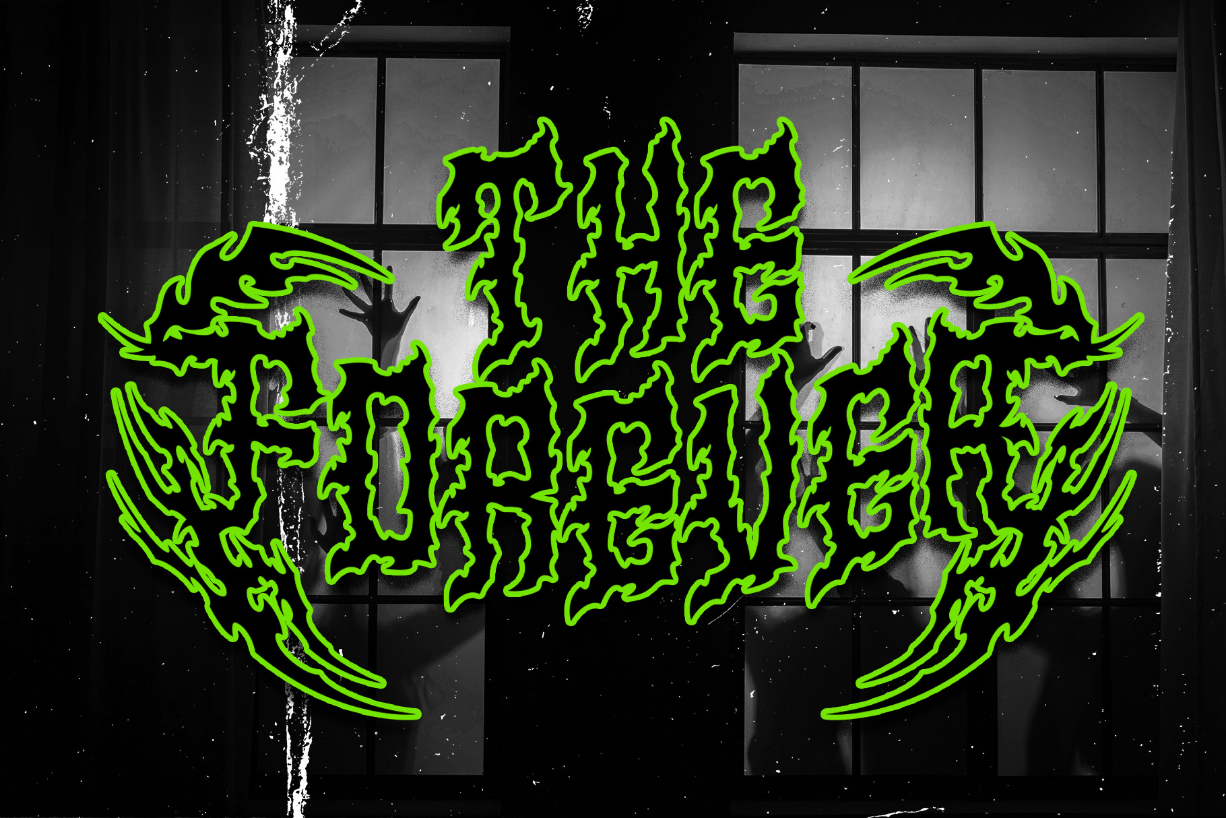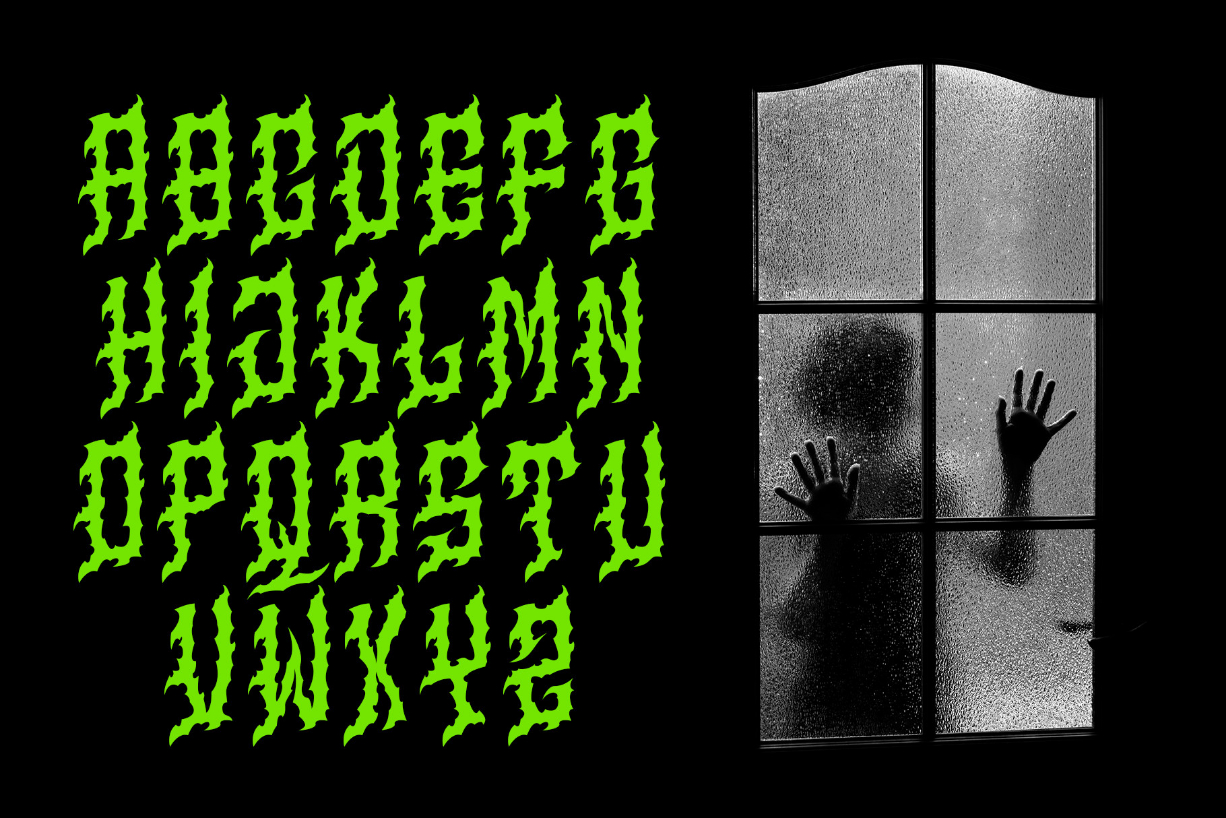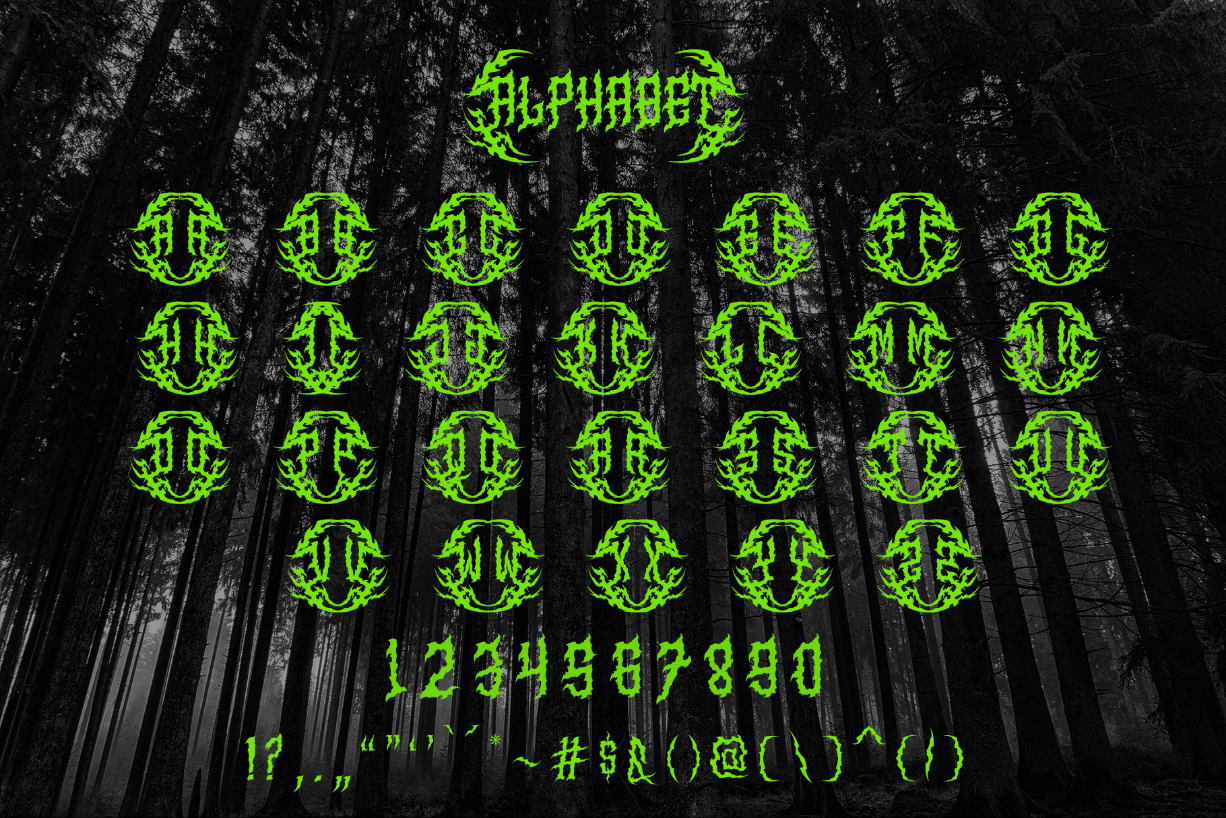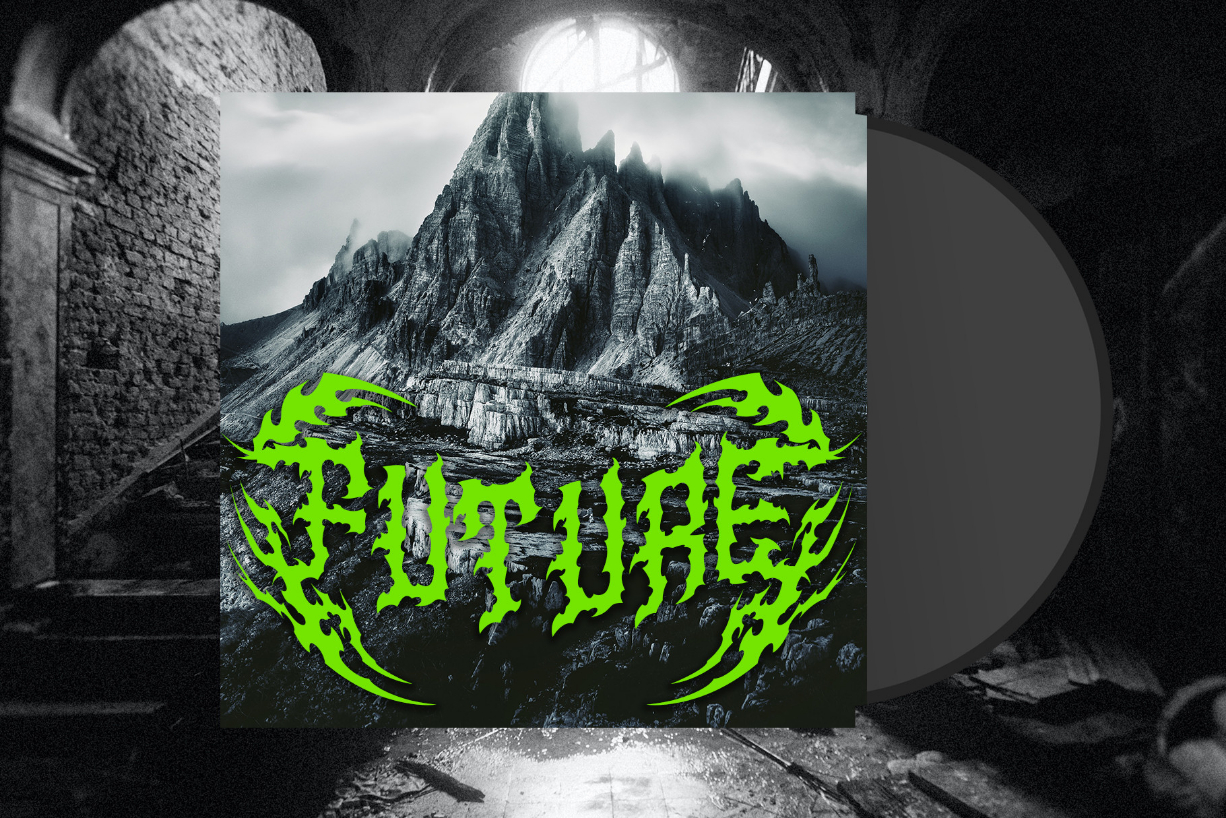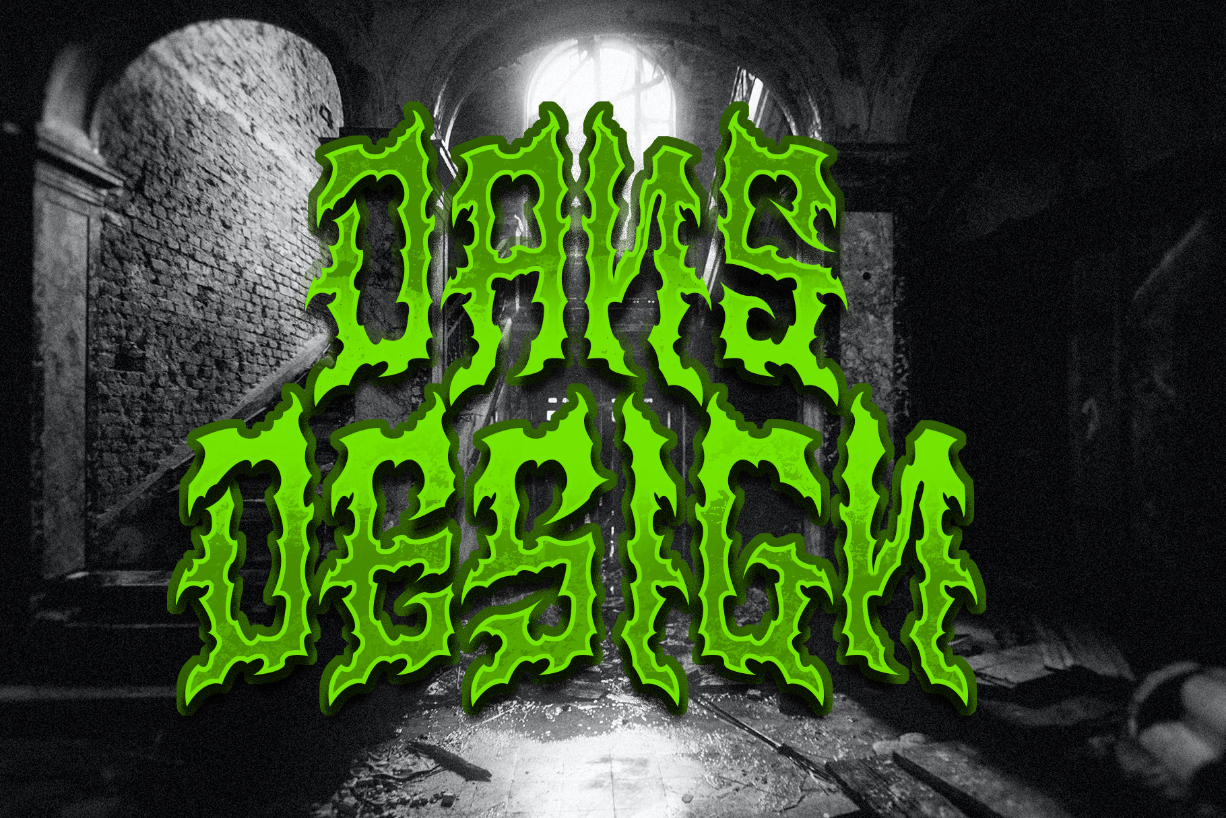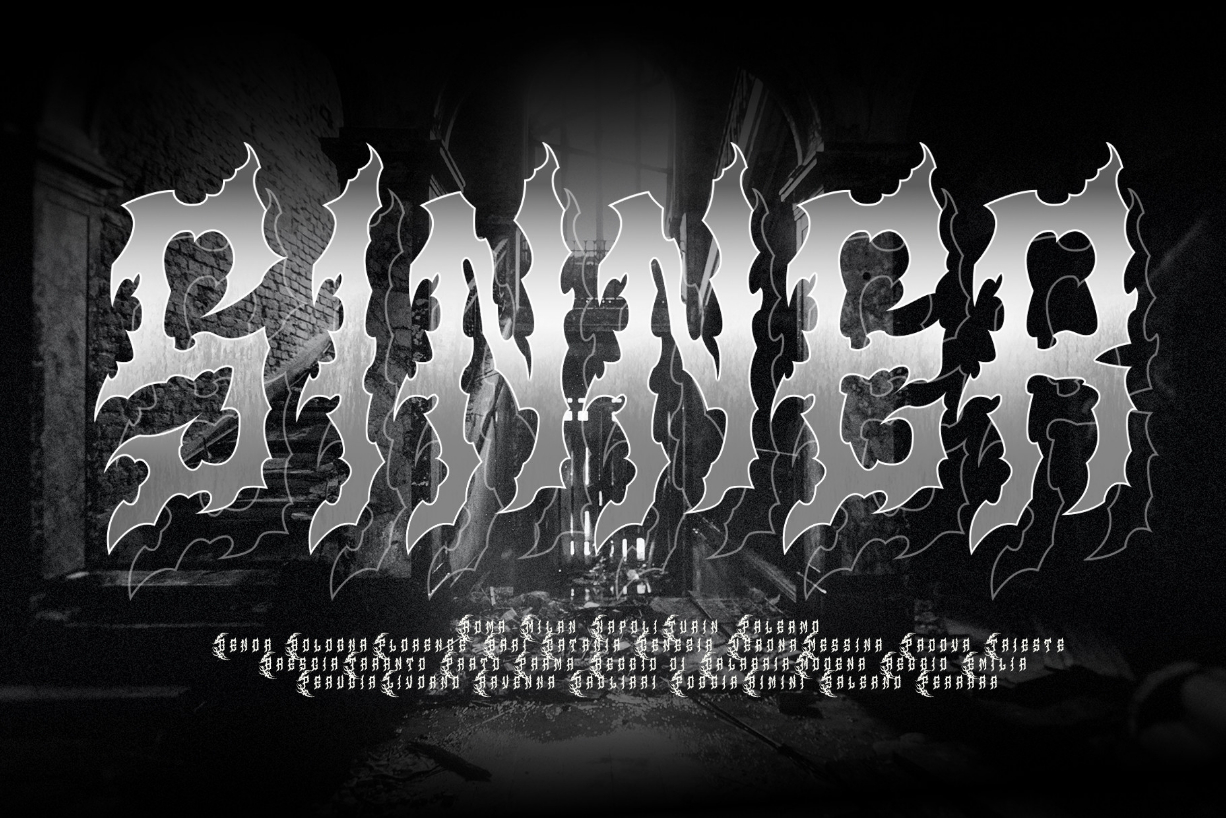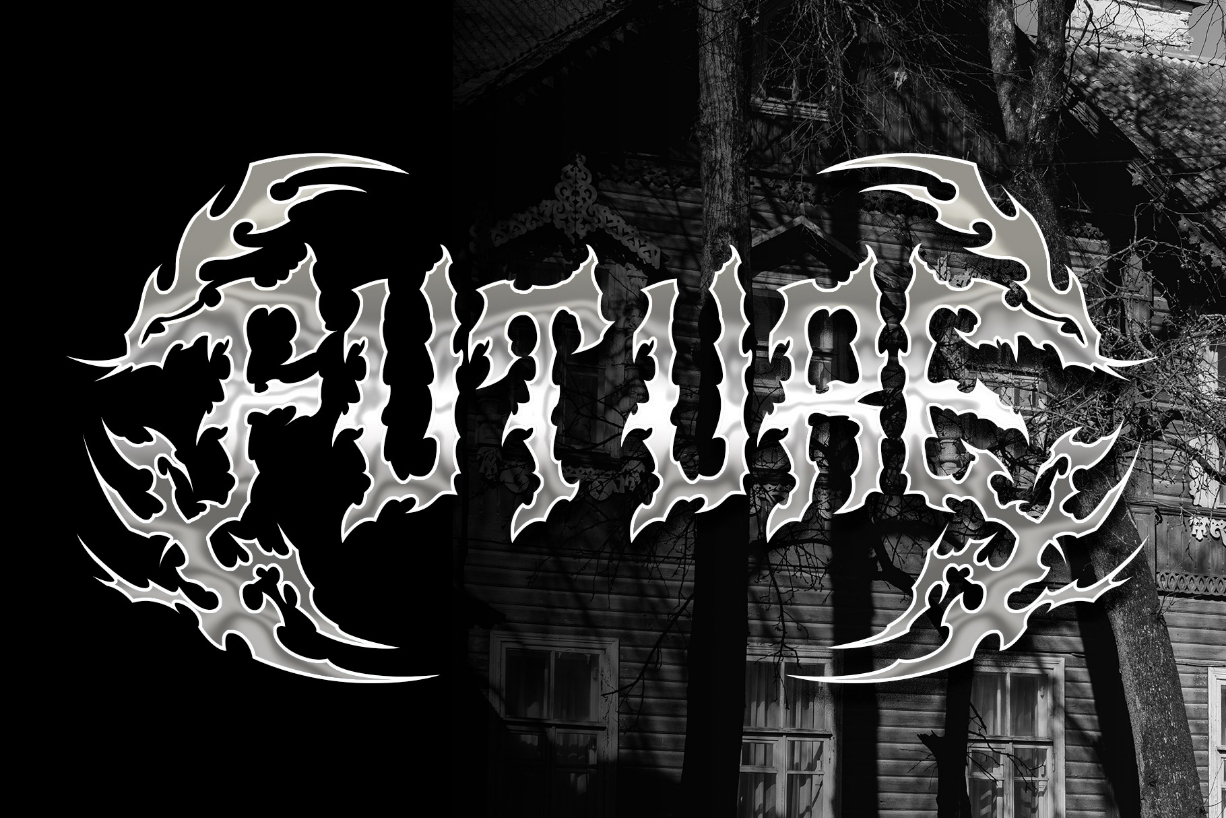
Manson Font
About Manson Font
Manson Modern Blackletter Metal Horror Font
Manson Modern Blackletter Metal Horror Font is a distinct, highly detailed, and Horror Metal Font. It would make a great choice for exquisite Music, Poster, retro-urban designs, tattoo business branding, logos, vintage designs, and more.